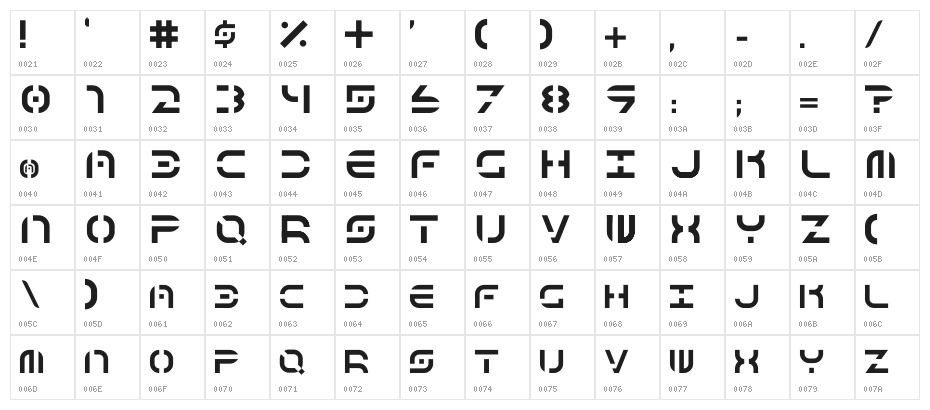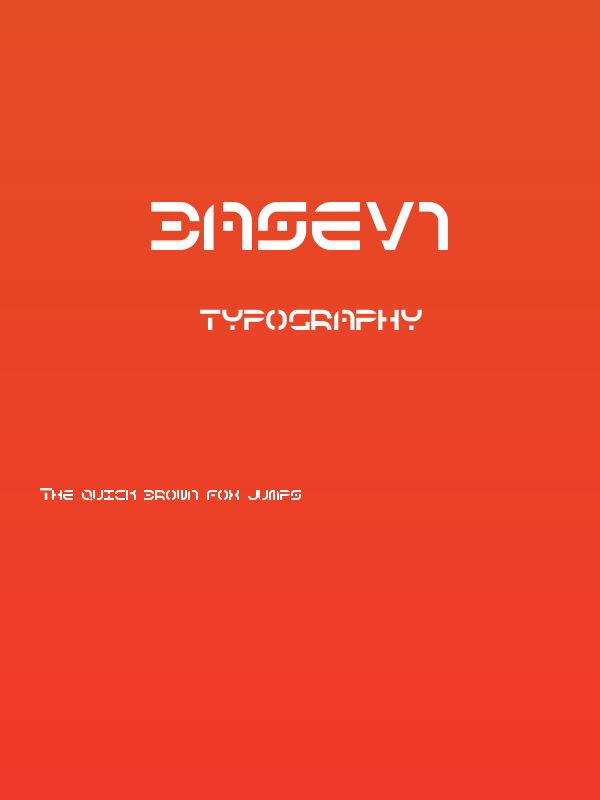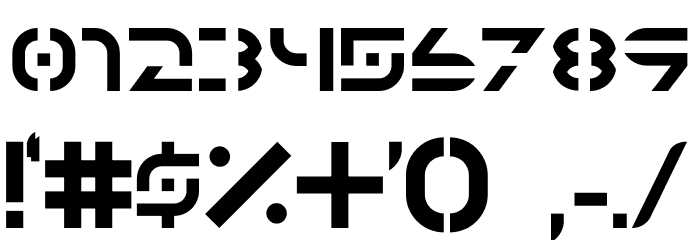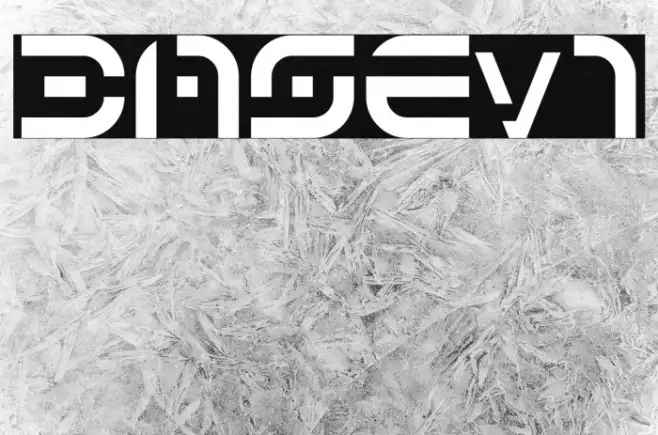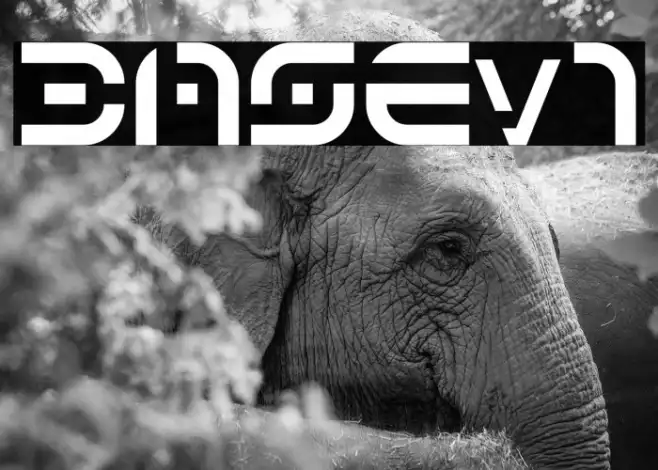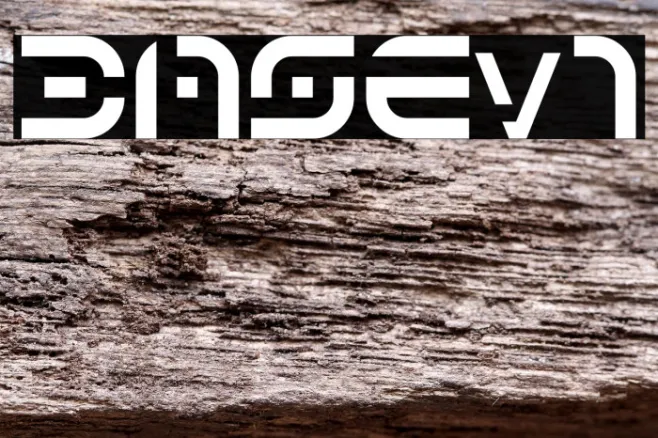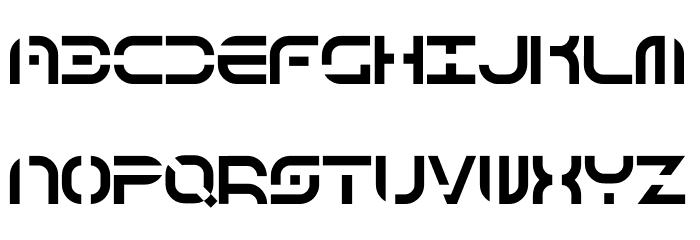
BASEv1 Font
BASEv1 Description
This font features a bold, futuristic design with geometric elements and a stencil-like appearance. The characters are constructed with a combination of straight lines and curves, creating a unique and modern aesthetic. The uppercase and lowercase letters share a consistent style, with distinct cutouts and breaks in the strokes that add to its digital and tech-inspired look. The numbers and special characters maintain this cohesive design, making it suitable for projects that require a contemporary and edgy feel.
| Proposed Projects | Ideal for tech-related branding, futuristic posters, digital artwork, and modern logo designs. |